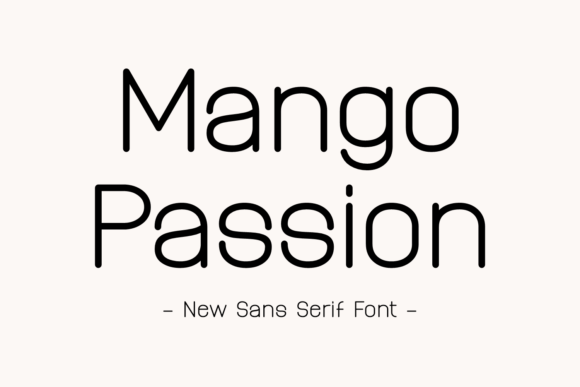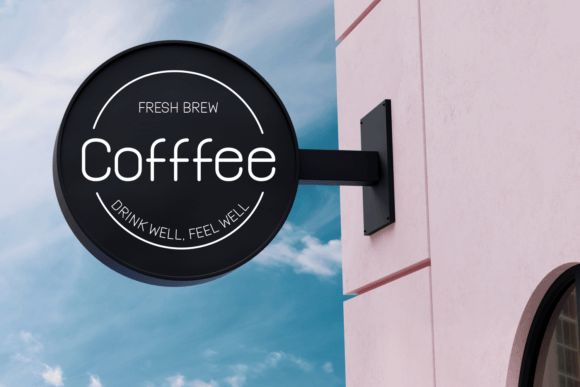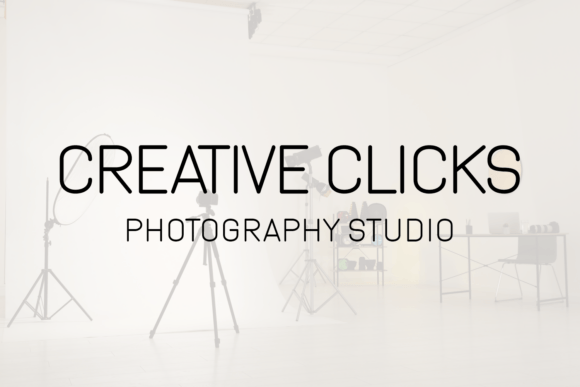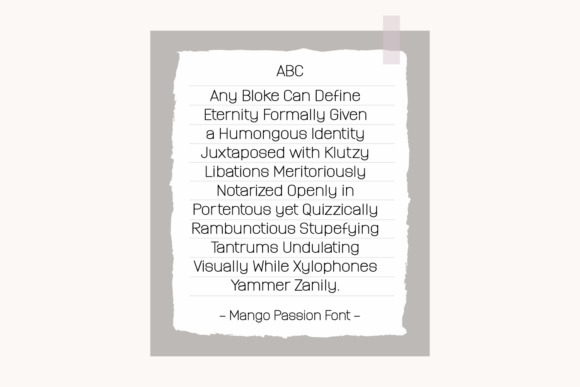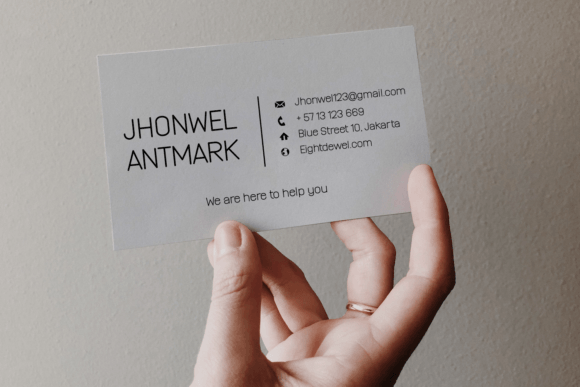
Mango Passion Font
Mango Passion is a new Sans Serif font. Designed with simplicity at its core, this basic font effortlessly exudes class and luxury, making it a popular choice for modern professionals. Crafted meticulously for the digital era.
Mango Passion is a versatile addition to your branding toolbox. Whether you’re penning down notes, designing cards, or crafting elegant logos, this font shines through with minimalistic charm. Ideal for wedding invitations, books, or diverse craft projects, Mango Passion is also well-suited for social media usage. Its blend of class, versatility and functionality makes it a valuable asset to both personal and professional design aesthetics.